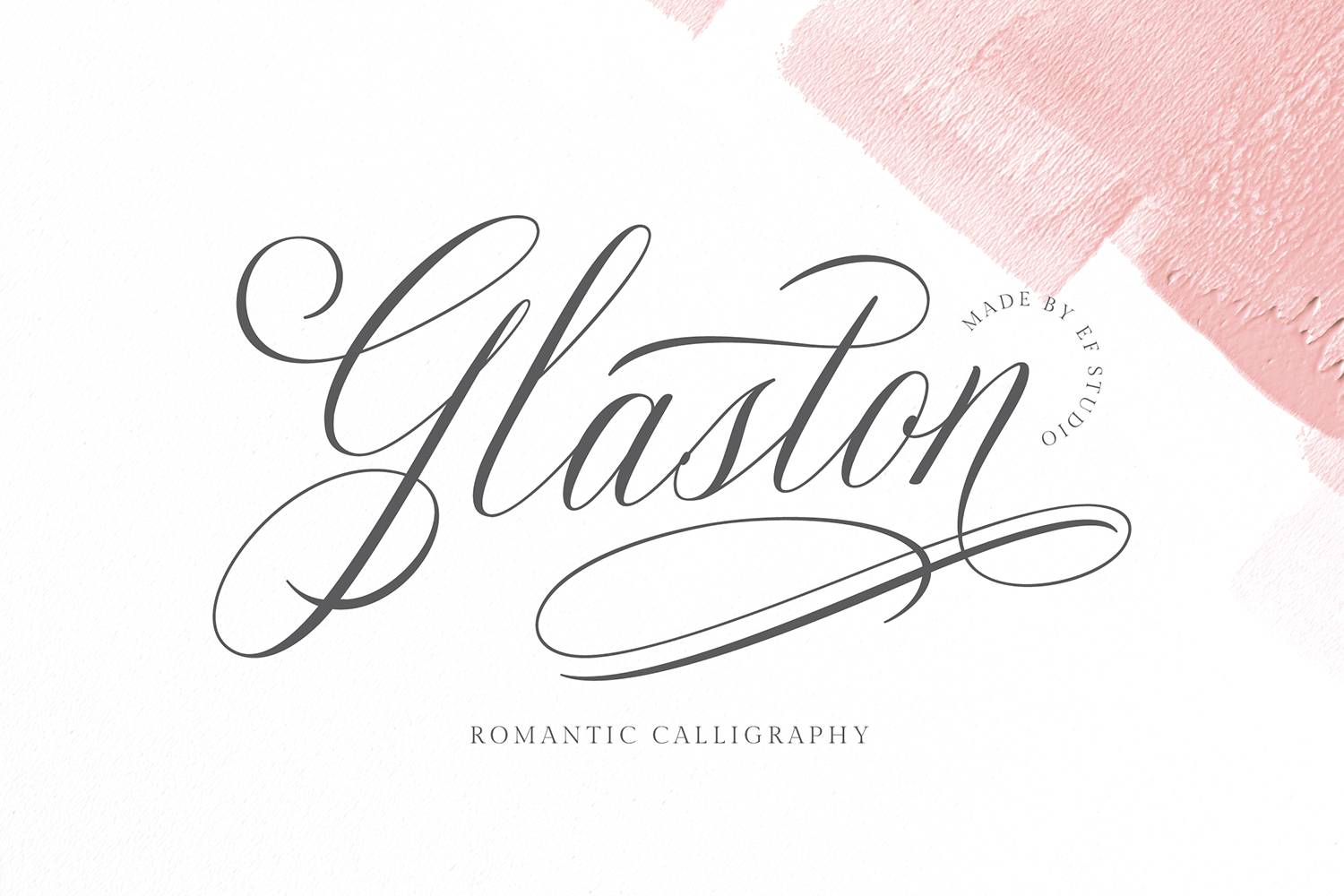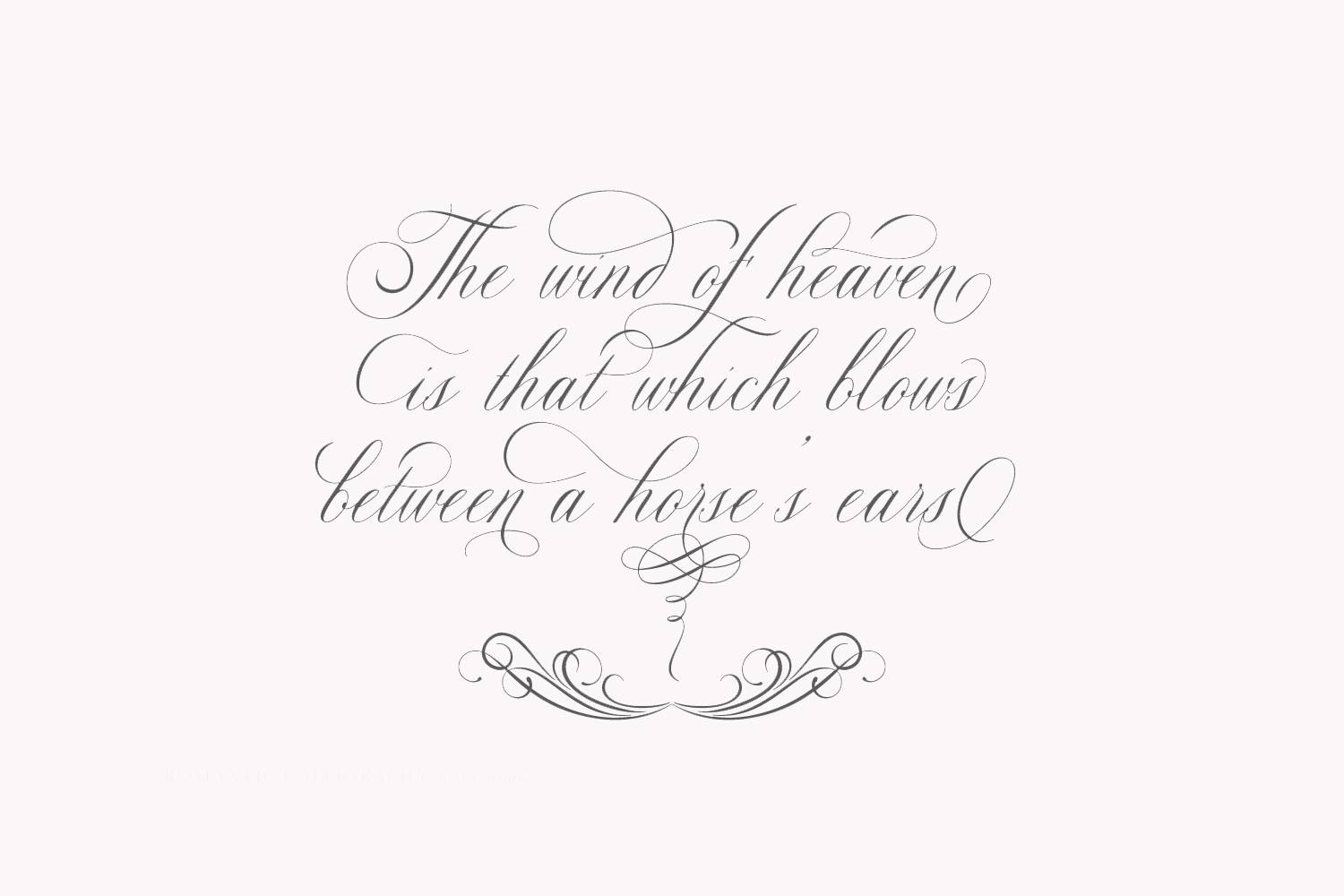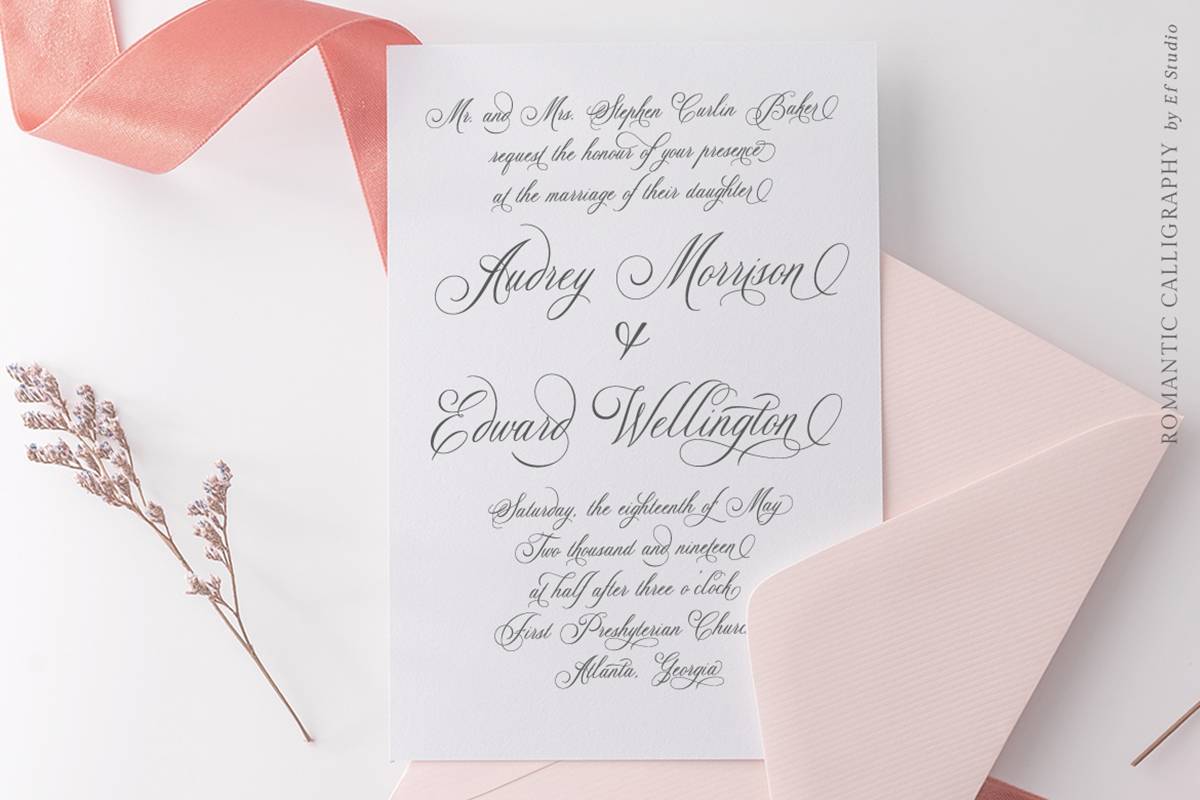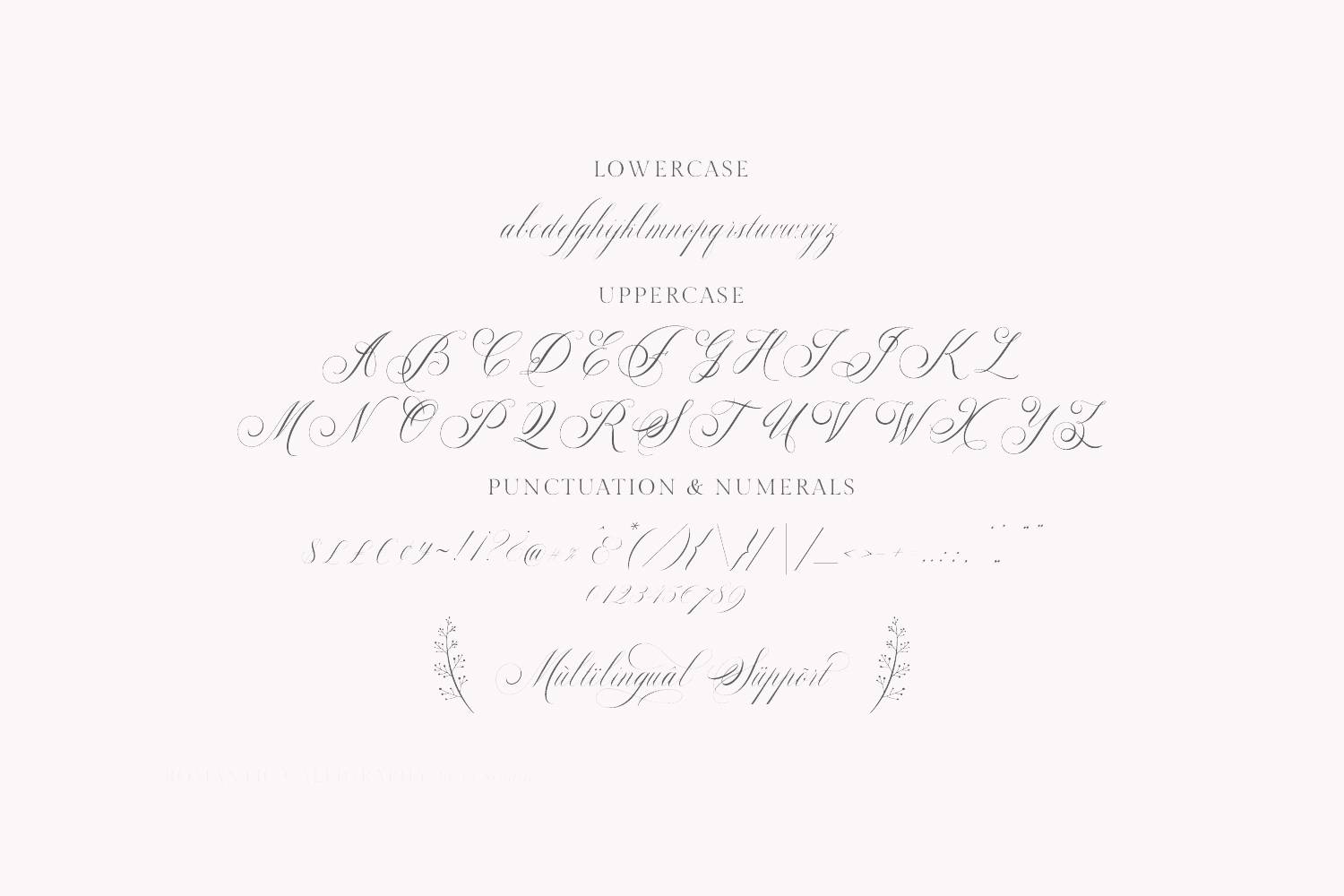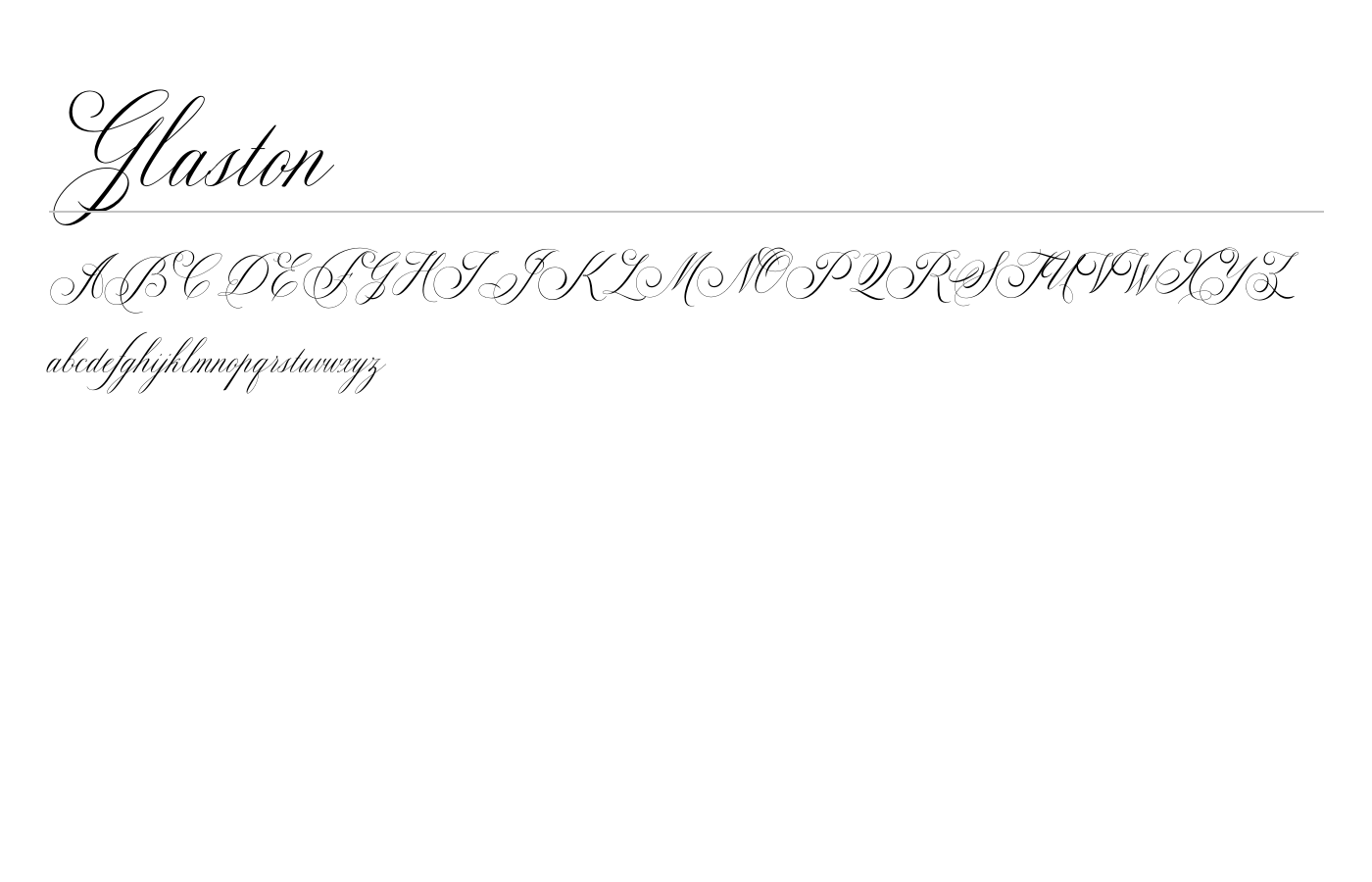
Glaston Romantic is an elegant script font characterized by its delicate, flowing strokes and graceful flourishes. Its thin weight and high contrast create a sophisticated, romantic feel that suits invitations, luxury branding, and elegant editorial design. This refined typeface adds a touch of timeless charm and femininity wherever a graceful, classic look is desired.
Glaston Romantic Font
About Glaston Romantic Font
| Font family | Glaston Romantic Font |
| Release date | 2019-06-29 |
| Designer | Ef Studio - Luthfi Fauzi - Purwakarta |